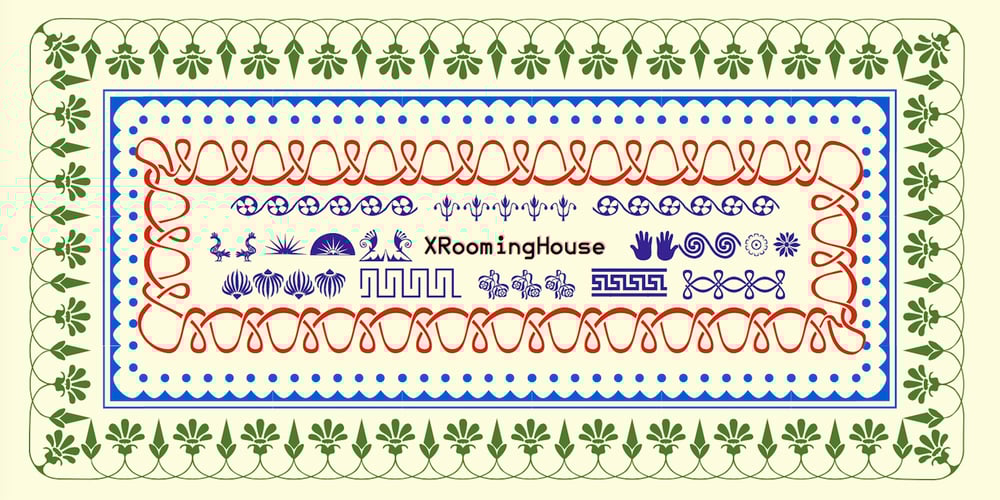
XRoomingHouse Font Family was designed by Robert Schenk and published by Ingrimayne Type. XRoomingHouse contains 1 styles and family package options. XRoomingHouse is a typeface of pictures that I did many years ago. Most of the pictures are border elements, and within a set they can be combined to make borders or frames. There is no real style consistency in the font—it is an eclectic collection of elements. (Minor corrections and additions were made in 2018 to improve sets that can form frames. For a more ambitious attempt at a font that can form frames, see Framealot). As for the name, boarders stay in a rooming house.